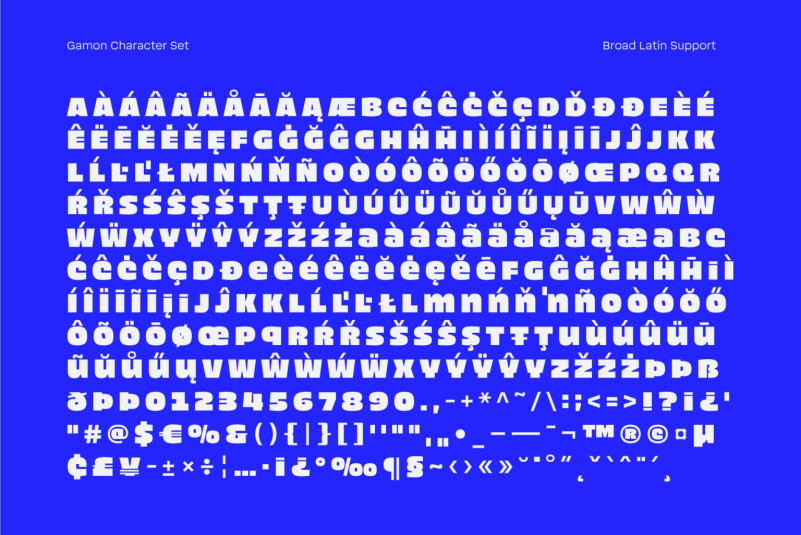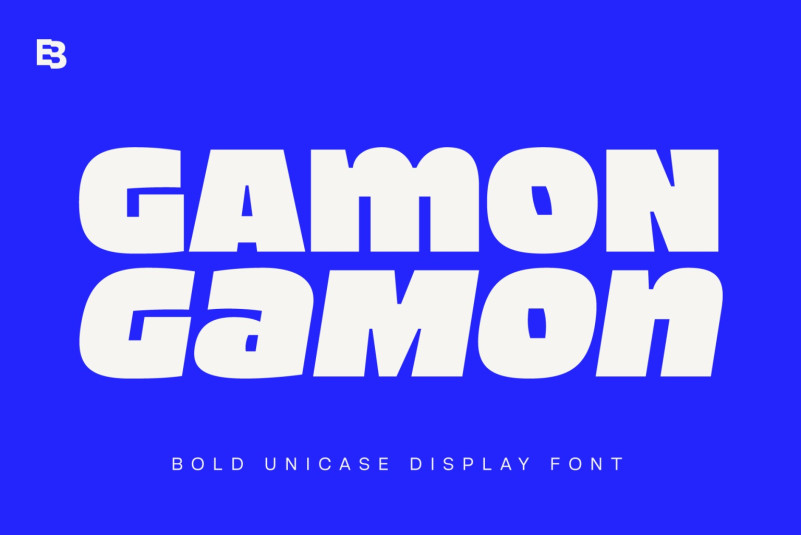
Gamon Font
Gamon Display Font is a bold unicase display font with a distinct modern and edgy personality. The unique letterforms of Gamon are characterized by the absence of traditional lowercase letters, with several different glyphs incorporated in the uppercase letters. The uppercase and lowercase letters are the same size, which further adds to the font’s unique and eye-catching appearance. With its bold and loud nature, Gamon is well-suited for large display layouts, branding, posters, and titles.
The typography of Gamon is ideal for designers seeking a contemporary and unique aesthetic. It can add a distinctive touch to digital or print designs, making them stand out from the crowd. Additionally, Gamon is suitable for a wide range of design applications, including logos, packaging, and marketing materials.